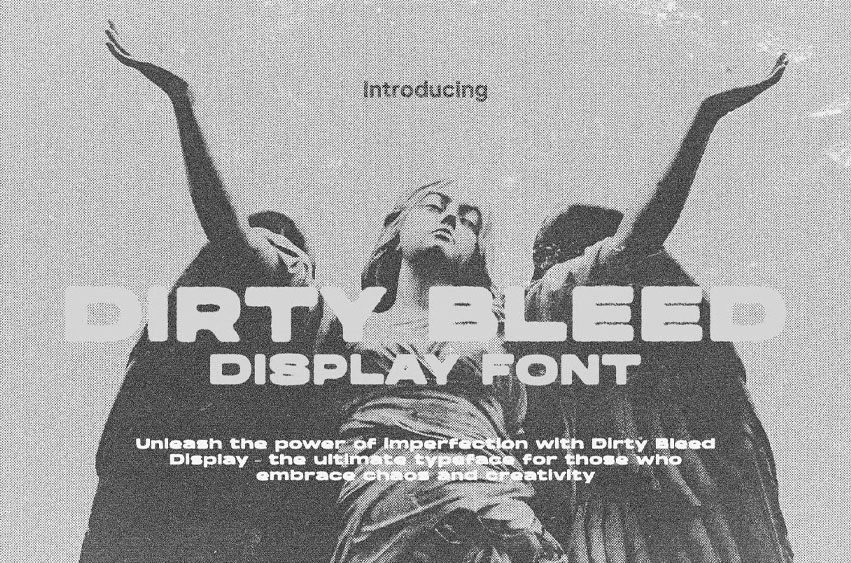
Dirty Bleed Font
Dirty Bleed Font Unleash the power of imperfection with Dirty Bleed Display – the ultimate typeface for those who embrace chaos and creativity. With its bold, grunge-inspired strokes and ink-splattered edges, this font is designed to make a statement. Whether you’re crafting rebellious posters, edgy branding, or gritty album covers, Dirty Bleed Display adds an intense, raw aesthetic that captures attention and fuels the imagination.